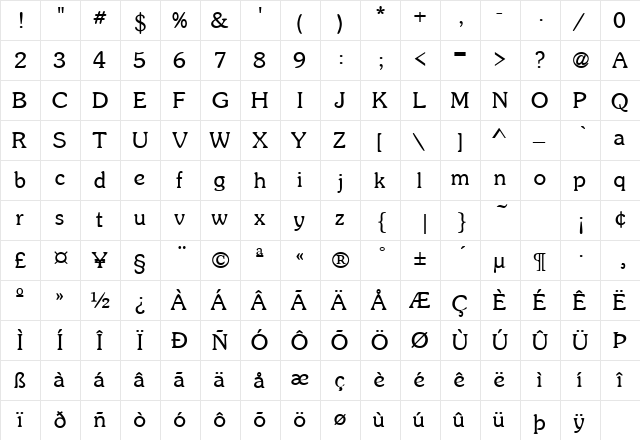
FinesseSSK Bold
Design Context for FinesseSSK Typeface
FinesseSSK offers clean, dependable letterforms without strong stylistic allegiance, making it a practical choice for designers who need flexibility. Its bold stroke weight gives it real presence on the page.